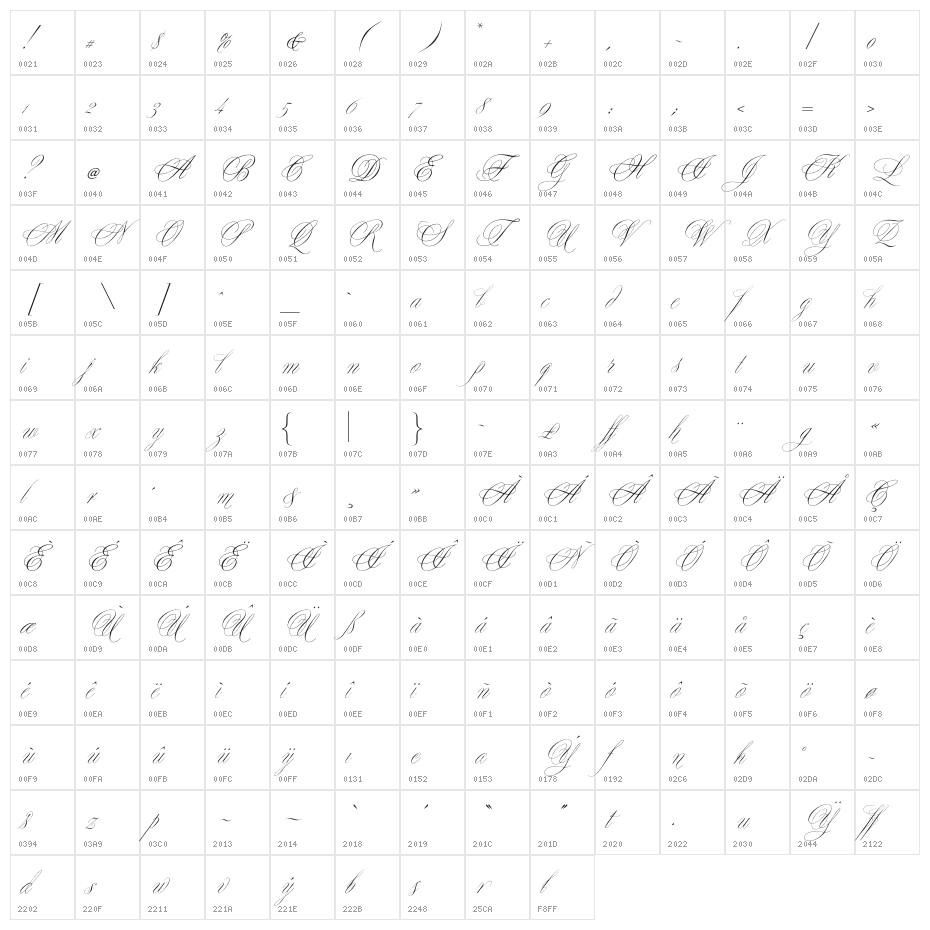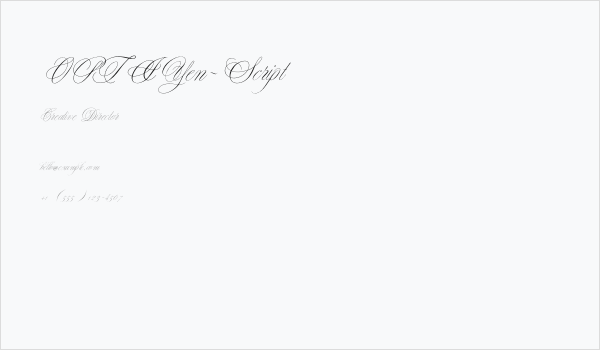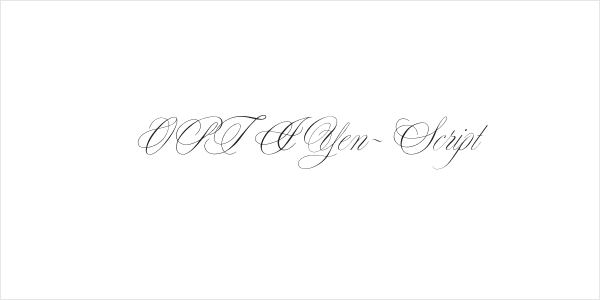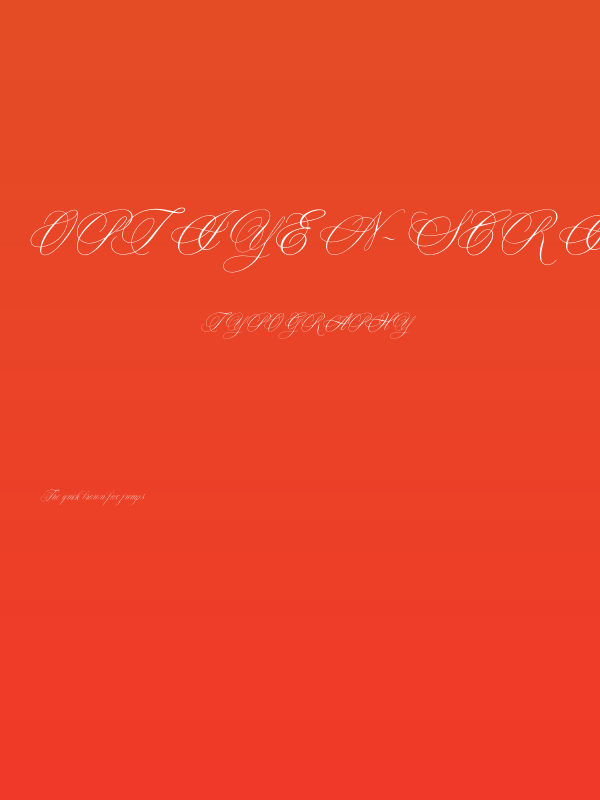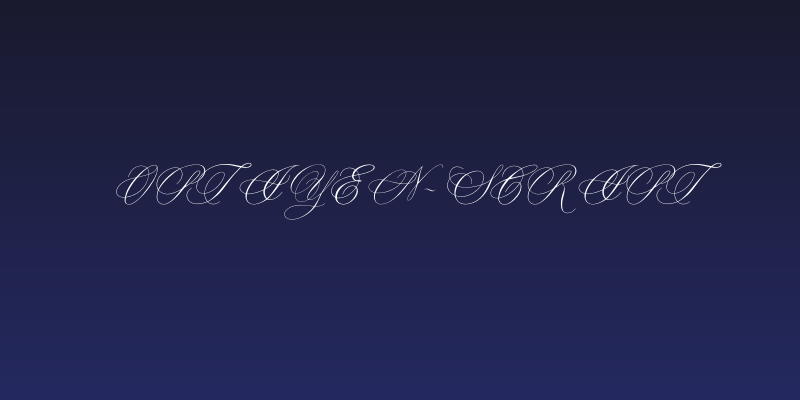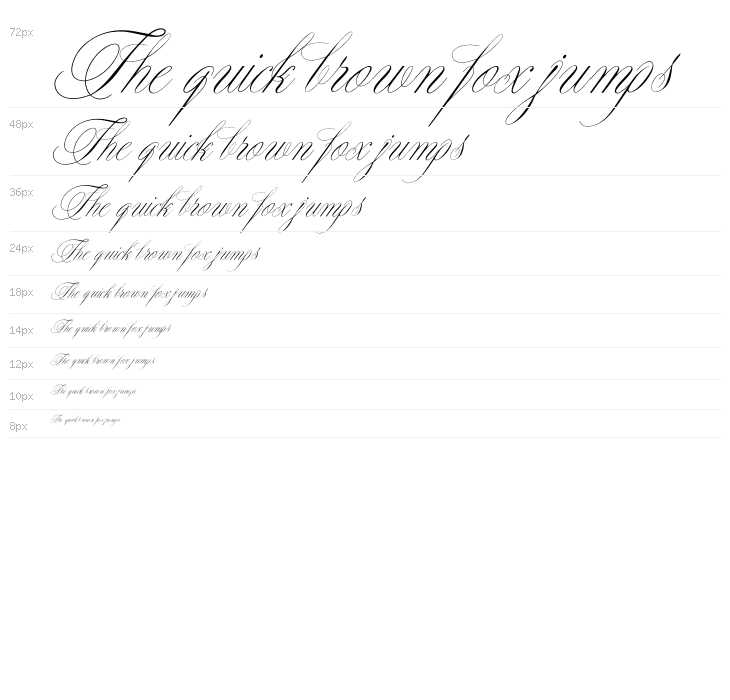
OPTIYen-Script Font
OPTIYen-Script Description
This elegant script font features a flowing, cursive style with intricate loops and flourishes. The uppercase letters are particularly ornate, with sweeping lines that create a sense of movement and grace. The lowercase letters maintain a consistent style, offering a smooth transition between characters. Numbers and special characters are designed with the same attention to detail, ensuring a cohesive look across all text. The font's delicate lines and high contrast between thick and thin strokes give it a sophisticated and refined appearance, ideal for formal invitations, branding, and decorative purposes.
| Overall Style | Elegant, Decorative |
| Use Case | Headlines, Invitations, Logos |
| Proposed Projects | Ideal for wedding invitations, luxury branding, elegant logos, and decorative headings. |